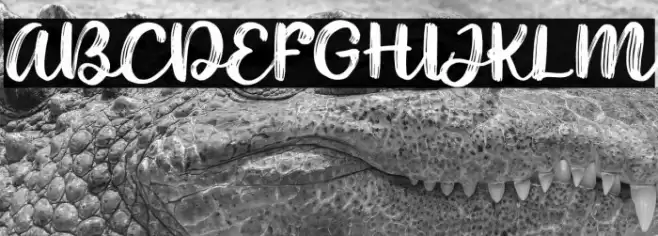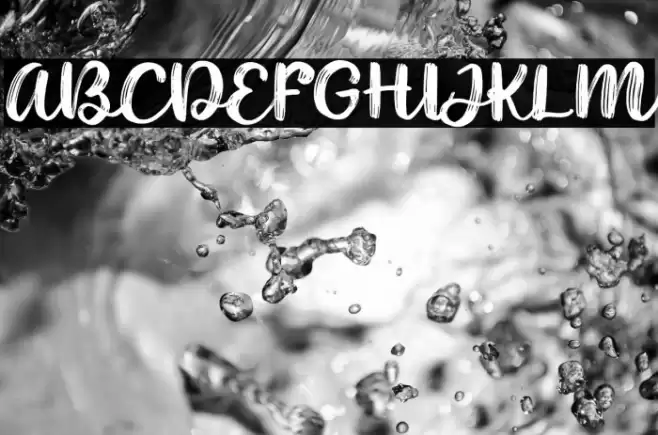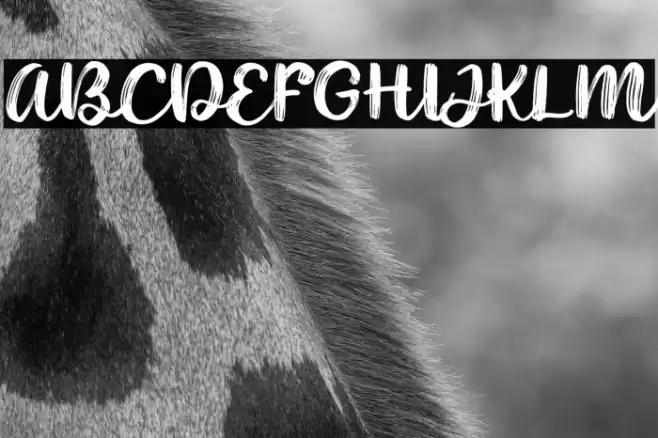
Noyram Demo Font
Noyram Demo Description
This font features a bold, brush script style with a hand-painted appearance. The letters are connected, giving it a flowing and dynamic look. The strokes are thick and textured, creating a sense of movement and energy. The uppercase letters are bold and prominent, while the lowercase letters maintain a consistent style with a slightly more delicate touch. The font includes a full set of uppercase and lowercase letters, numbers, and a selection of special characters. Its artistic and expressive nature makes it ideal for creative projects that require a personal and handcrafted feel.
A bold, brush script font with a hand-painted, dynamic style from Uncategorized fonts.
- Proposed Projects: Ideal for branding, logos, invitations, posters, and any project that requires a personal, artistic touch.
- Use Case: Logos, Headlines, Invitations